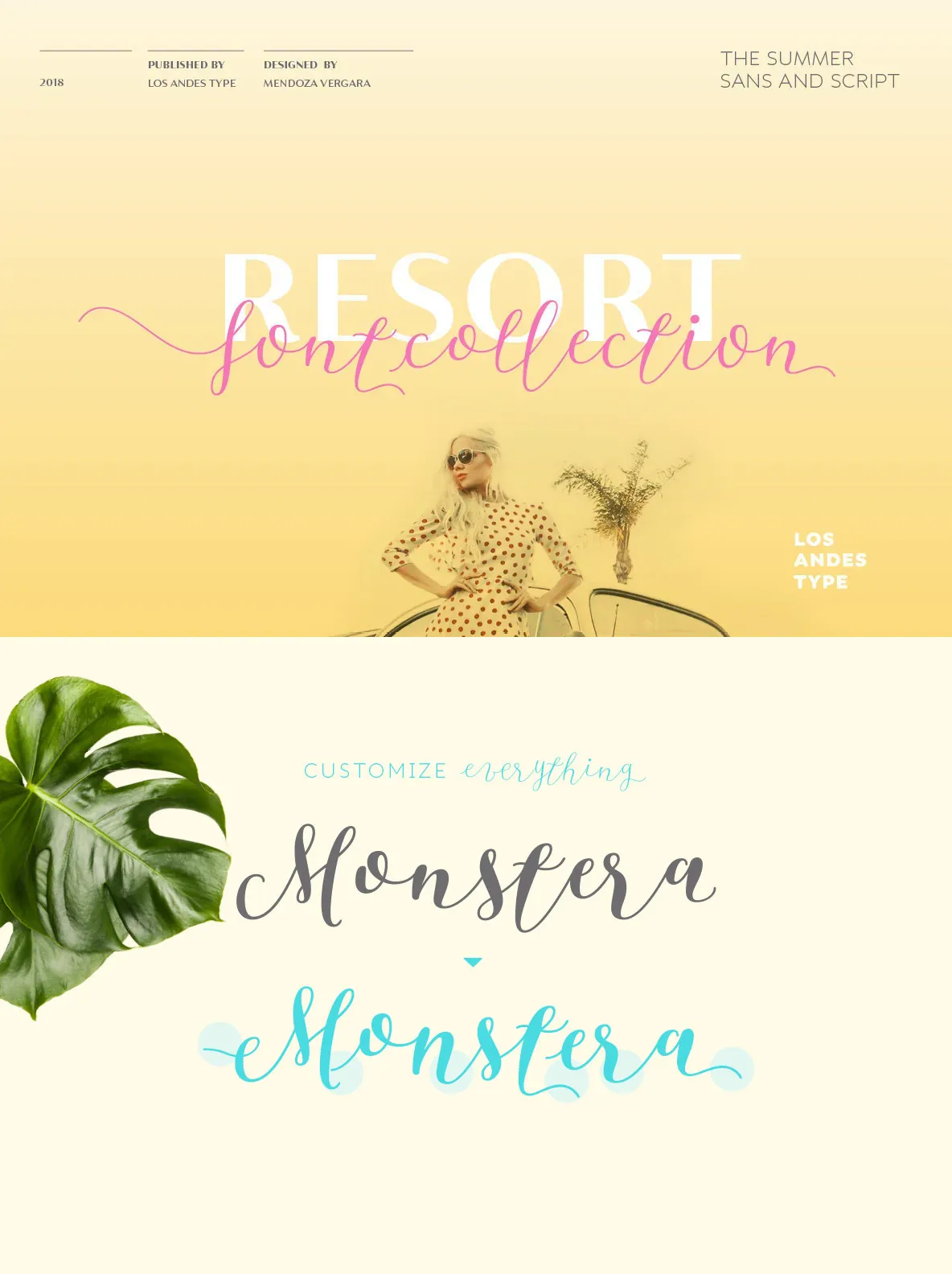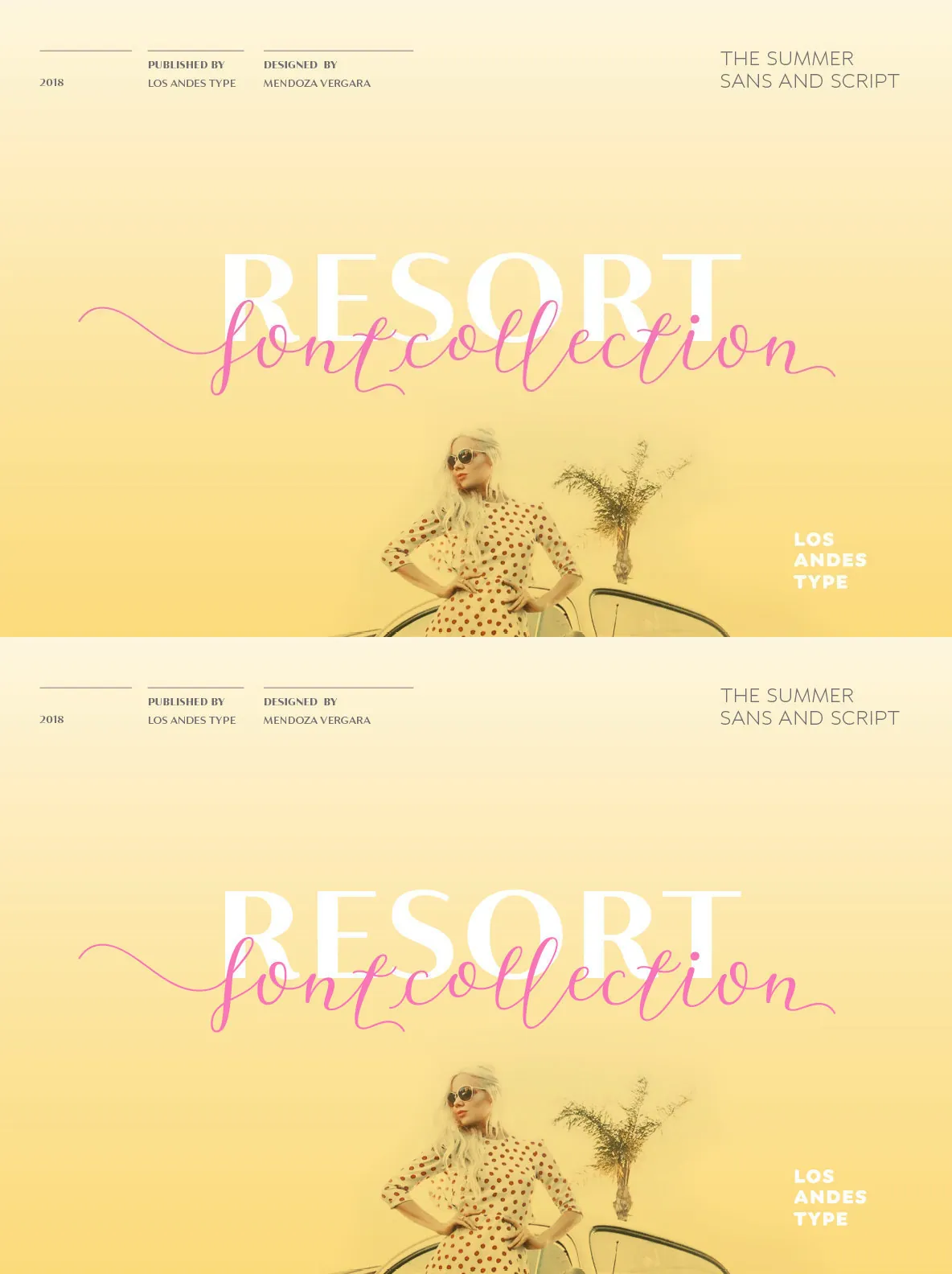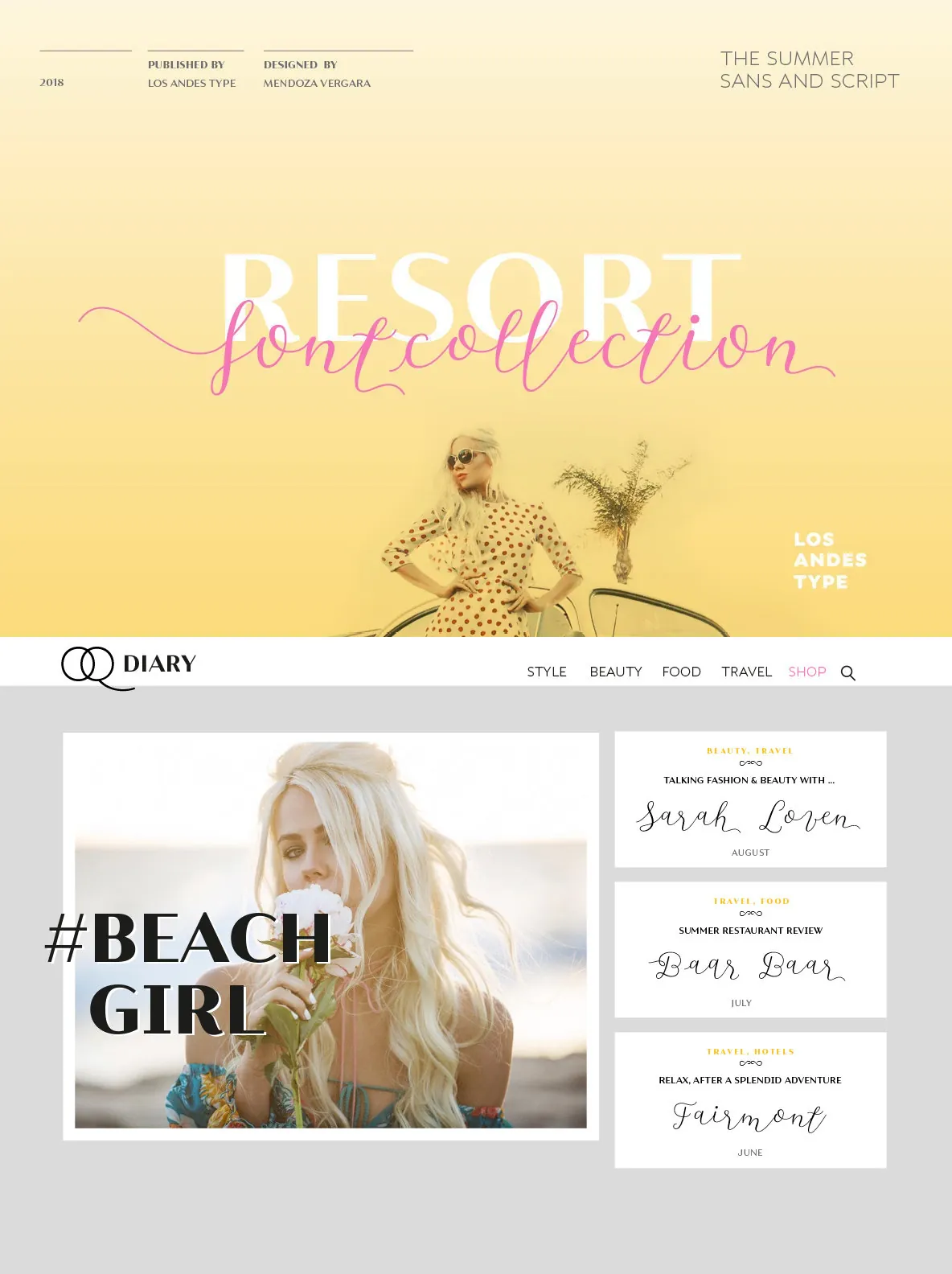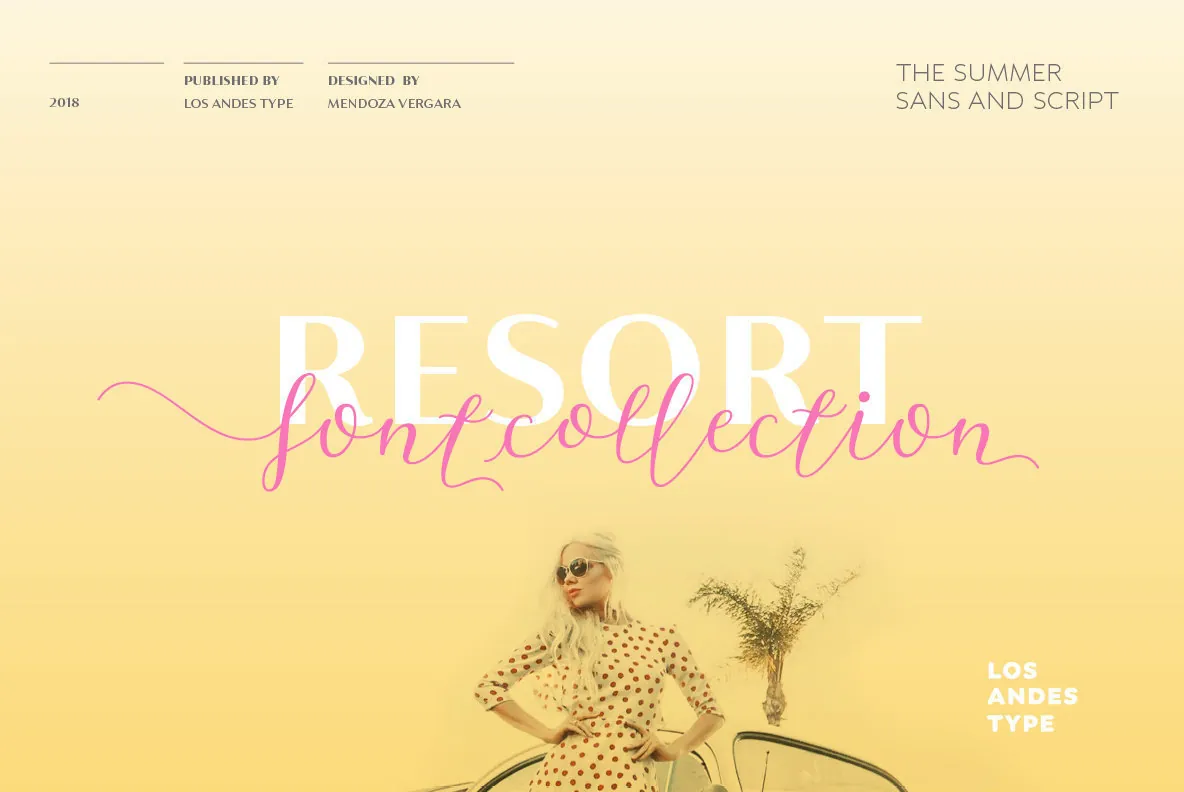
Resort — Casual script, crisp caps
A contemporary, casual Script pairs with a sophisticated all-caps Sans, defined by high contrast between thick and thin strokes. Used together, the two styles read as polished yet relaxed, with enough range for both expressive display and clear typographic structure.
This font collection suits magazines, blogs, mockups, use with social networking sites, logos and headlines, as well as greeting cards, invitations, book covers, posters, and web and on-screen use. Resort is a font collection consisting of 12 styles and 3 variants: Script, Sans and Ornaments. The set is intended to give designers a wide range of options across varied projects.
The collection includes a relaxing Script of 5 weights and a classic 6-weight Sans, plus lively floral ornaments. Resort evokes the feeling of barefoot walks along the beach at sunset with a refreshing cocktail. Resort was designed by Guisela Coto Mendoza and Luciano Vergara. Special thanks to everyone in the Latinotype Team, especially to Rodrigo Fuenzalida, for their support and help with digital editing.